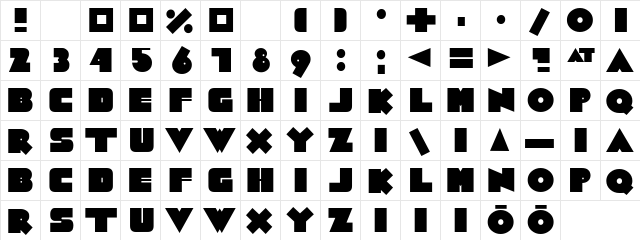
GrubaBerta Regular
| Foundry | barmee |
| Designer | bartek nowak |
Design Context for GrubaBerta Typeface
GrubaBerta is a composed and adaptable typeface that performs quietly and consistently across a wide range of design contexts.